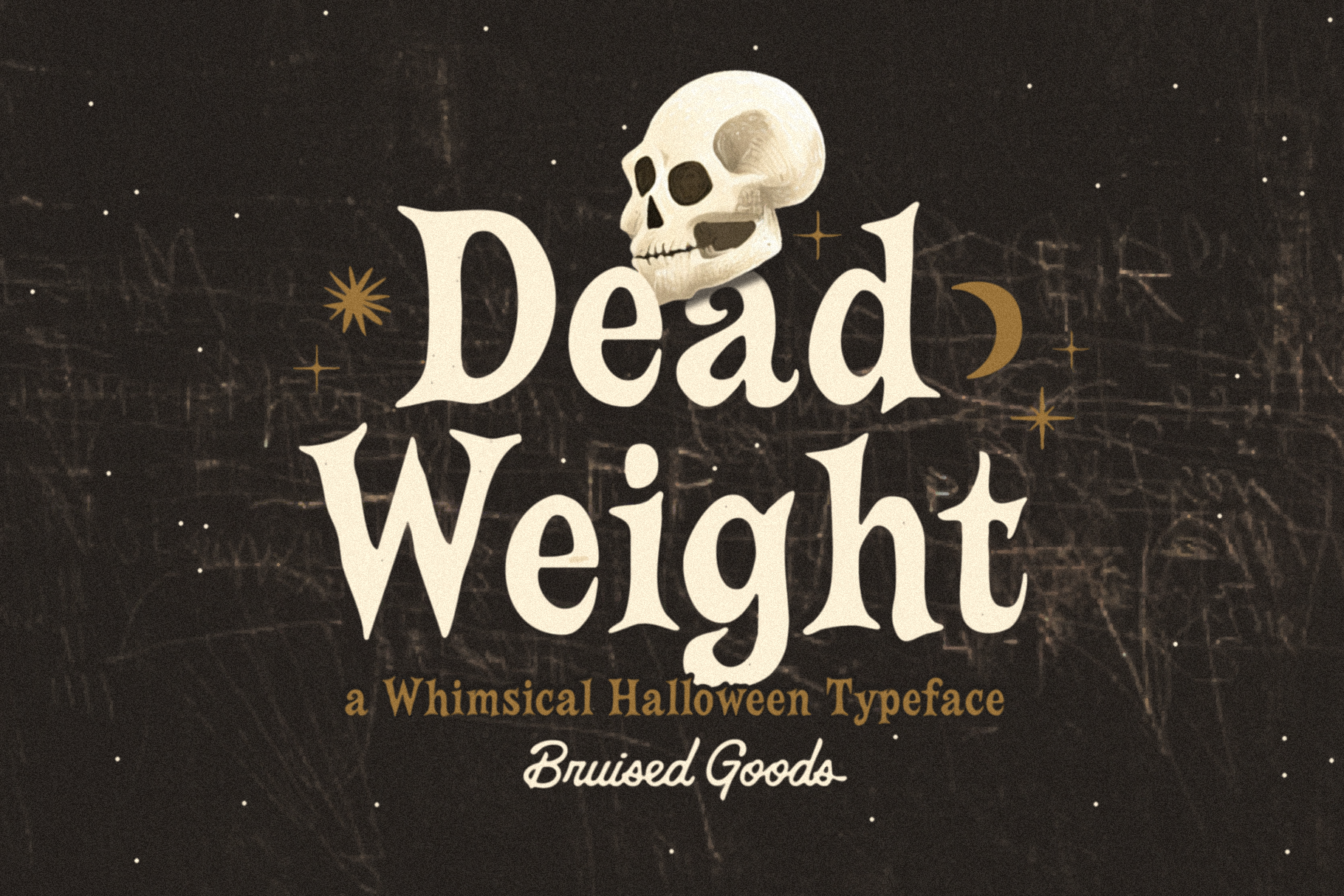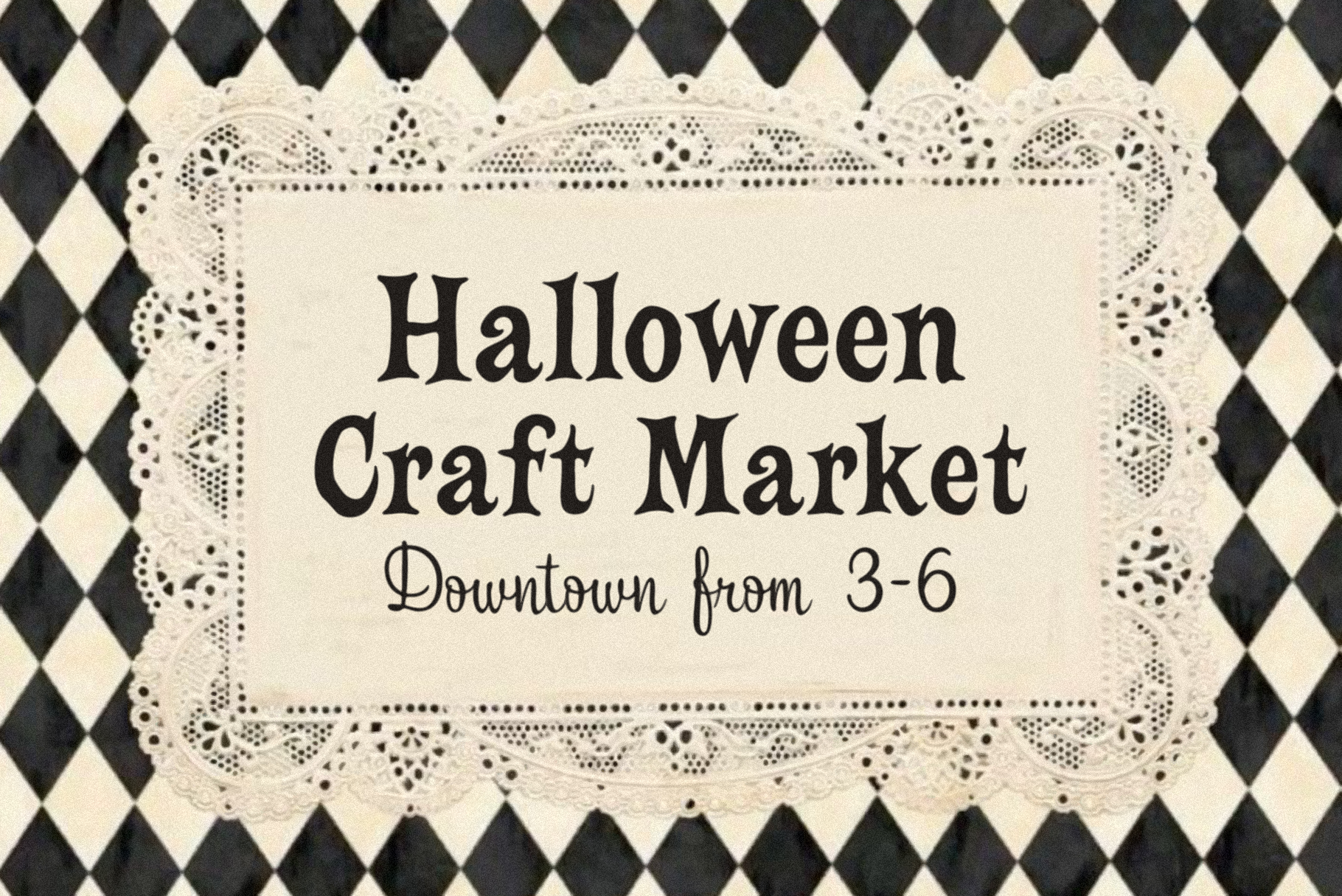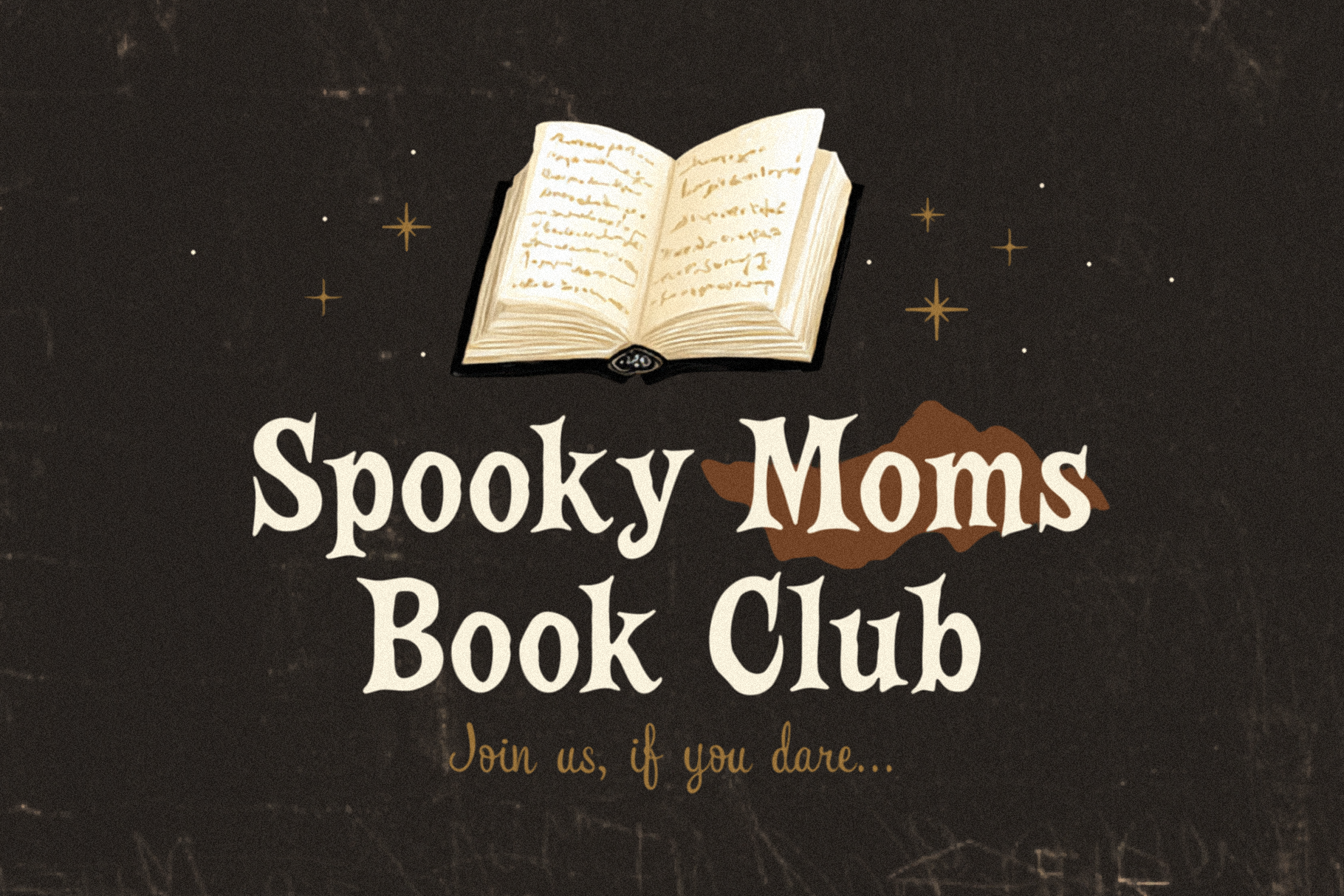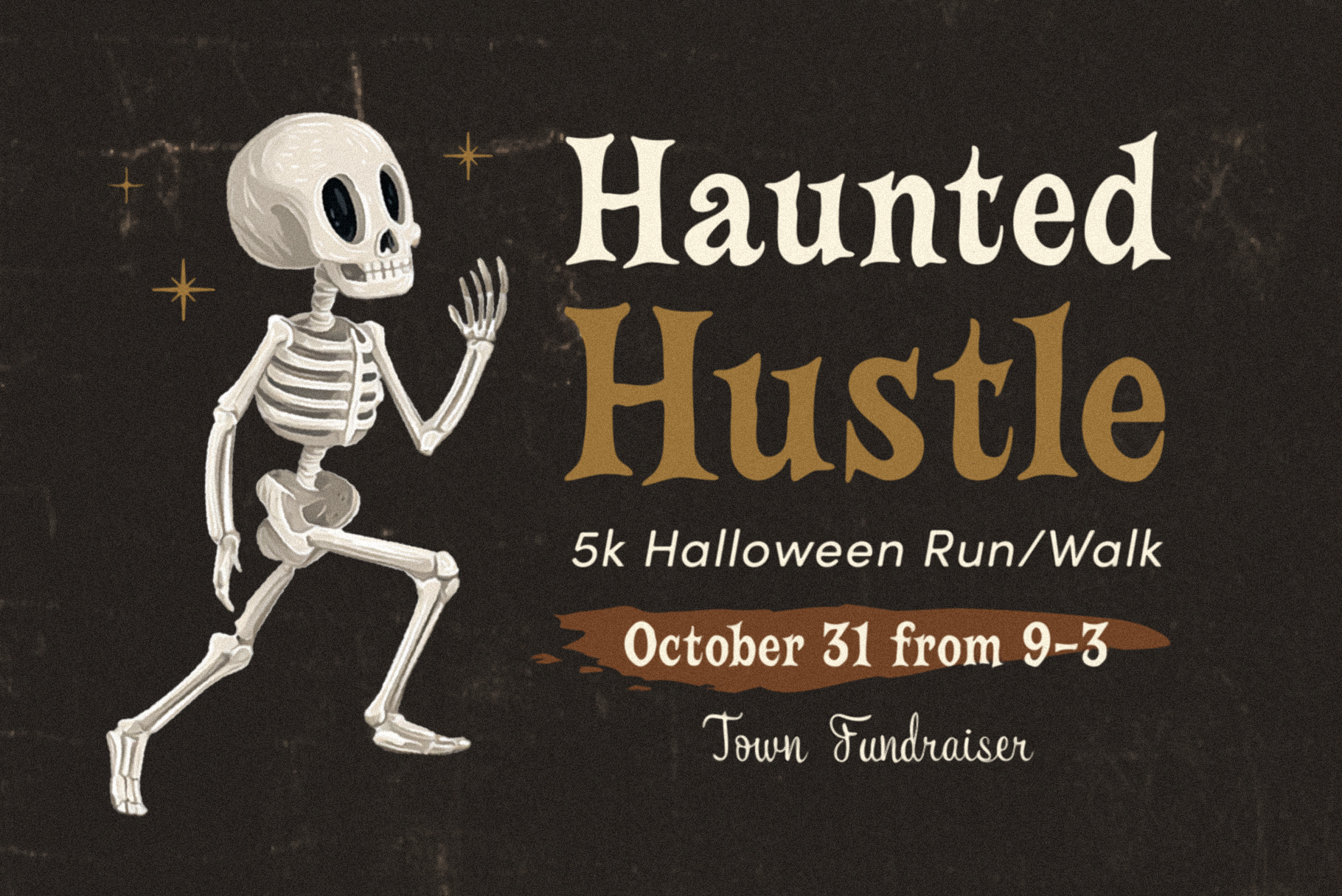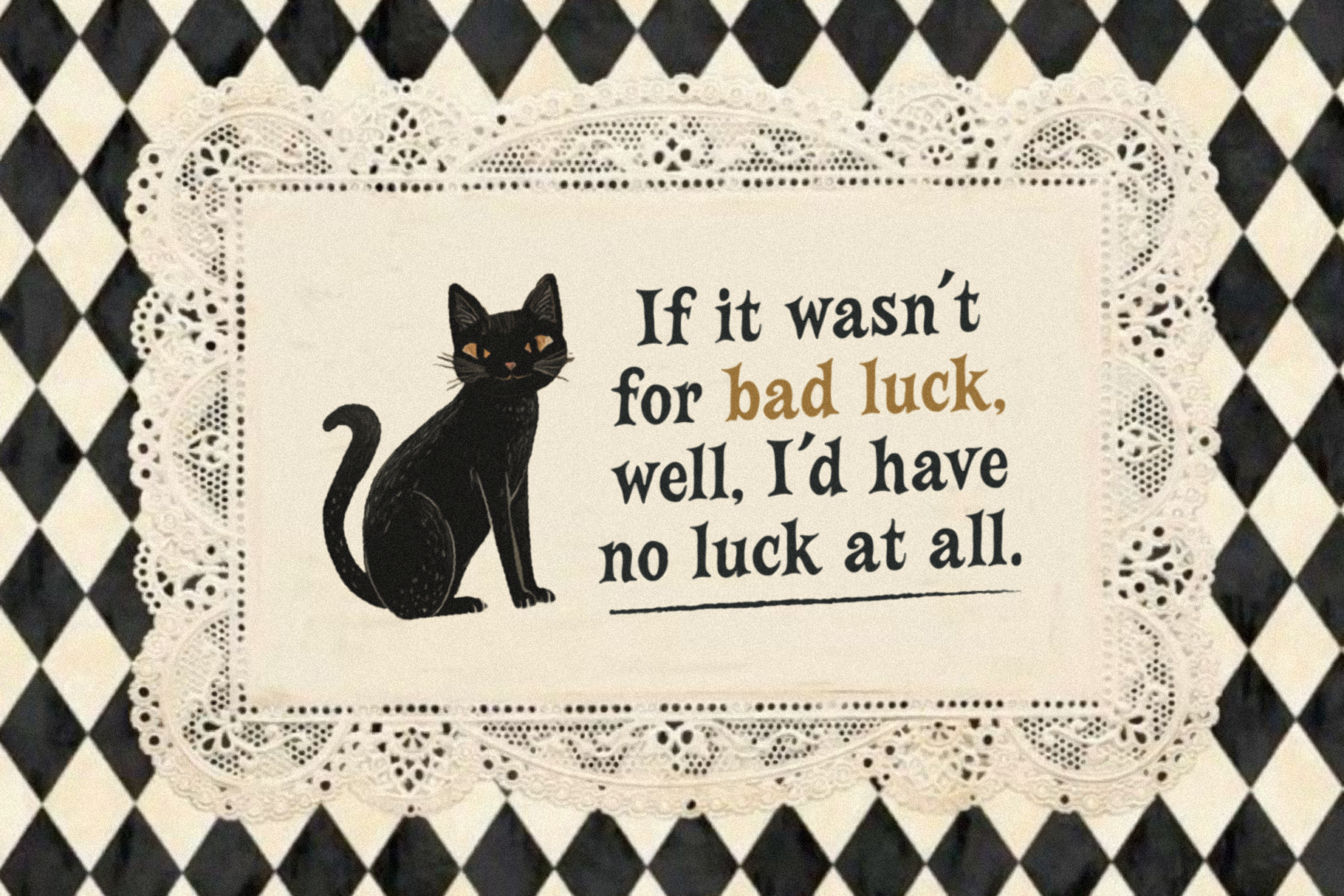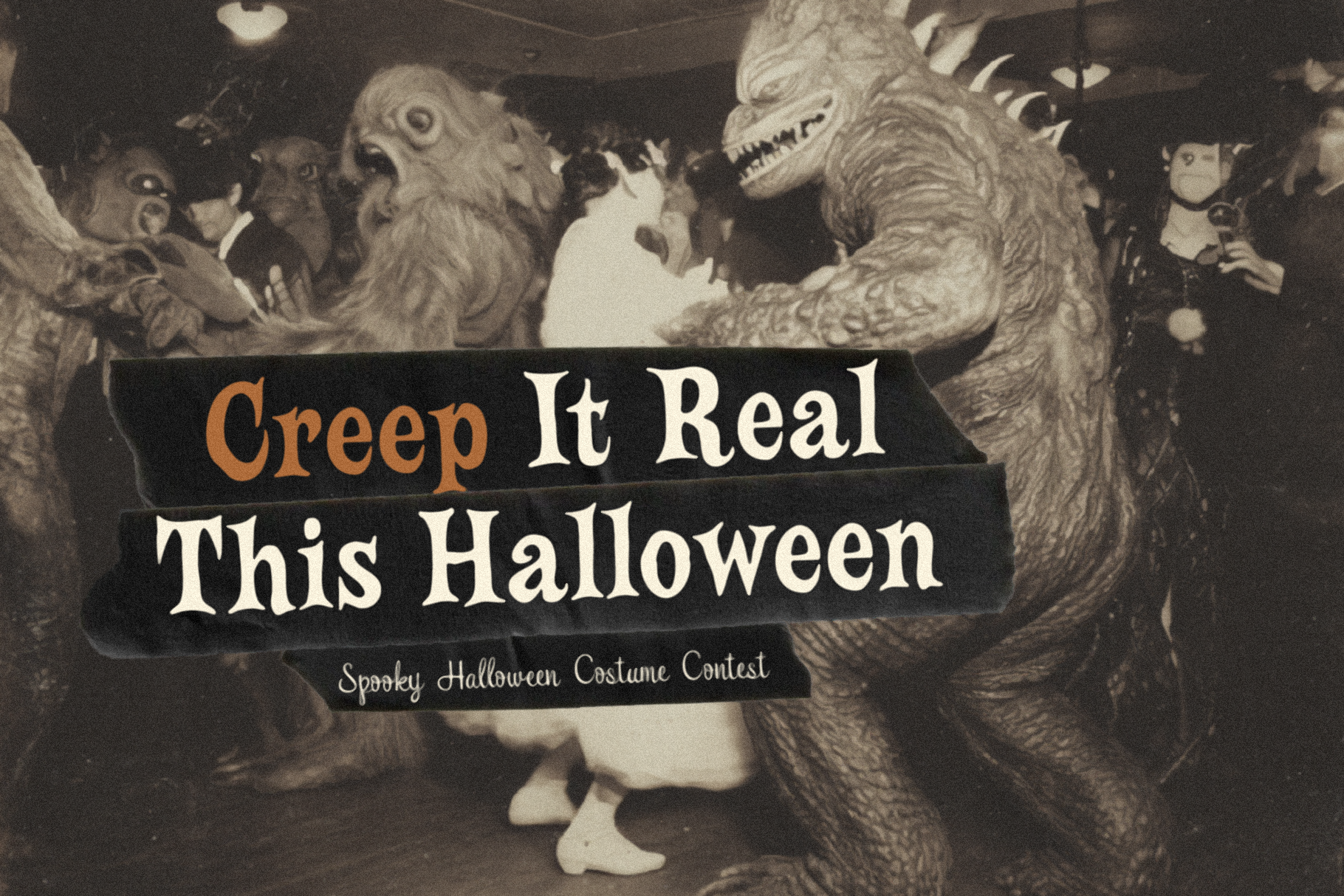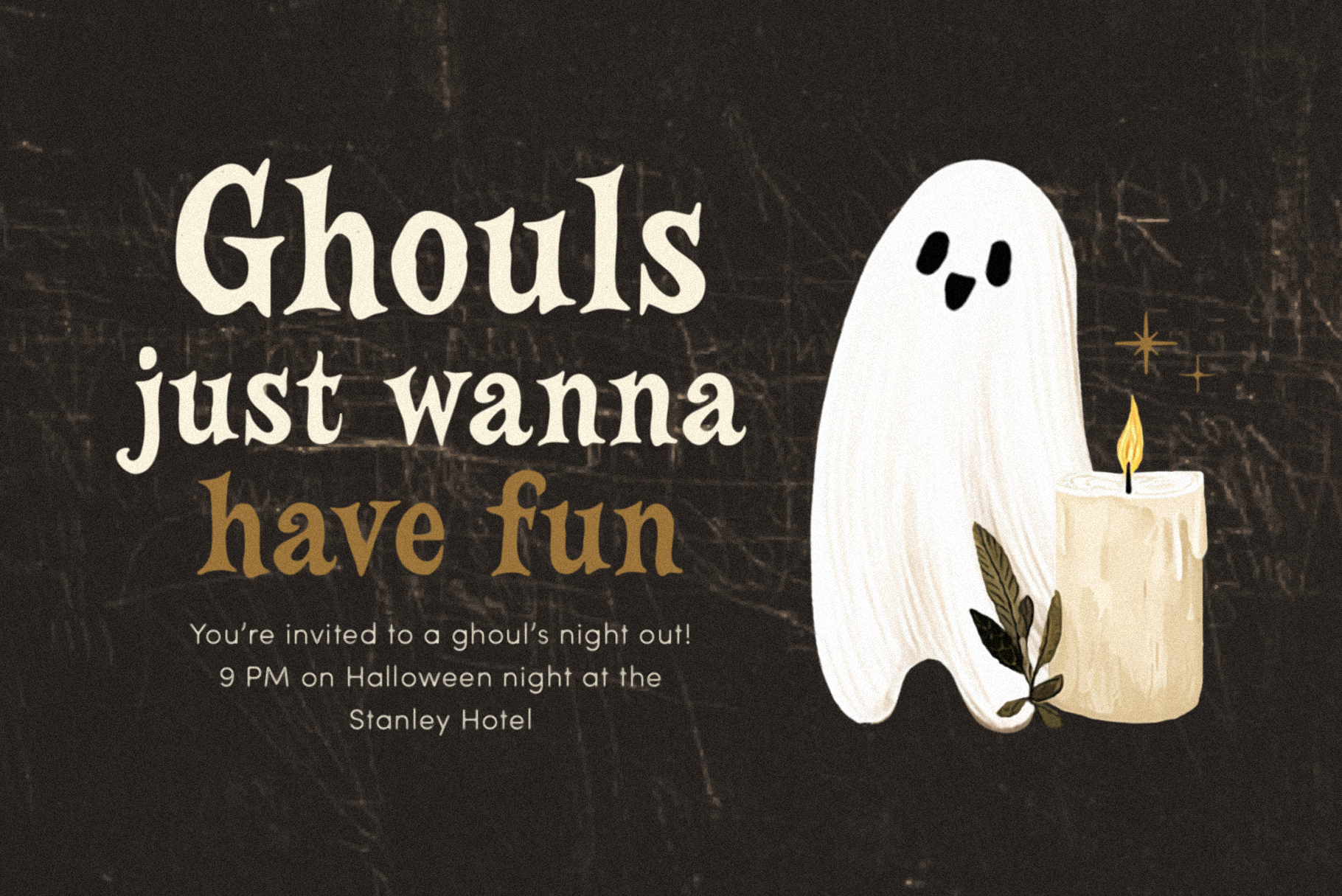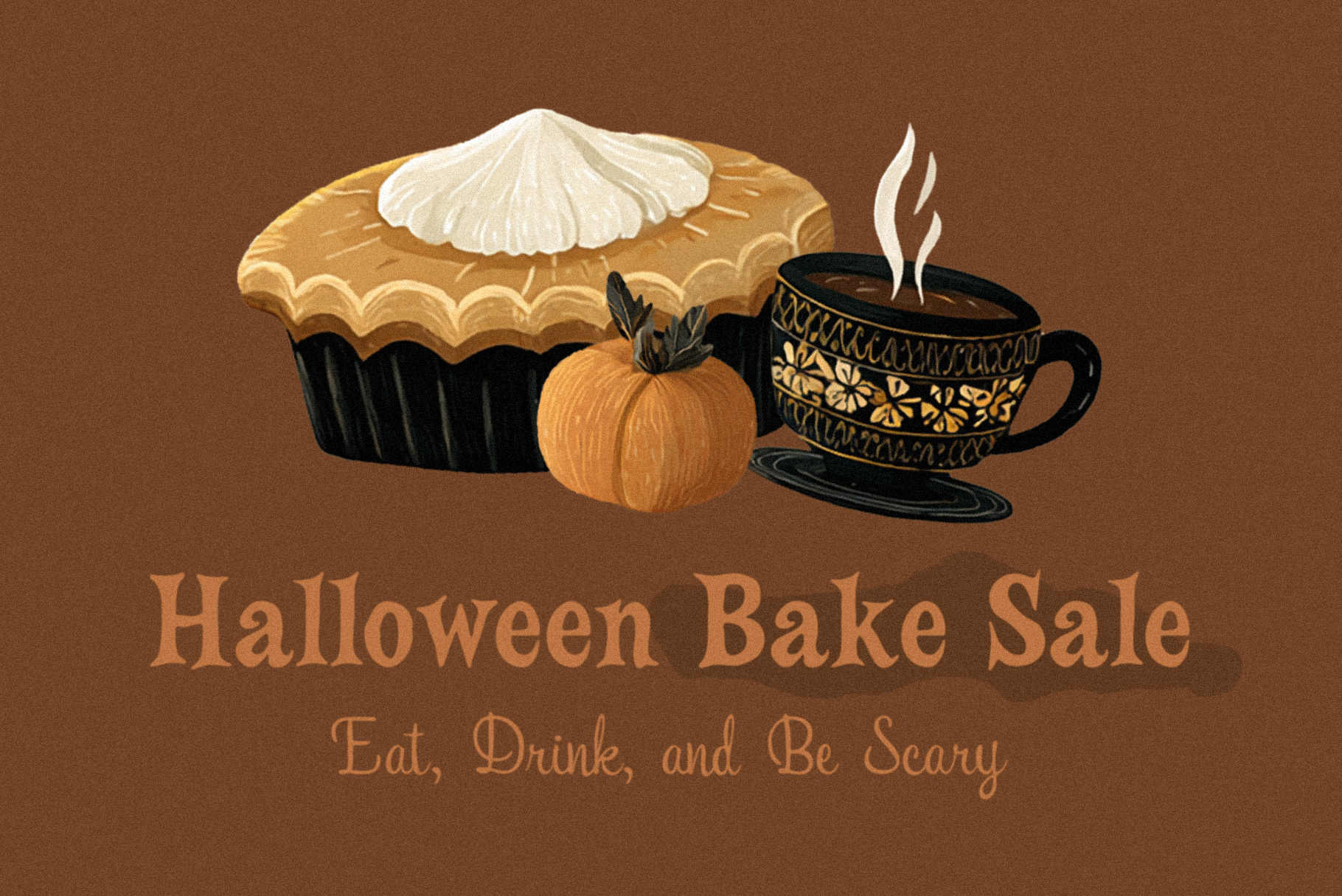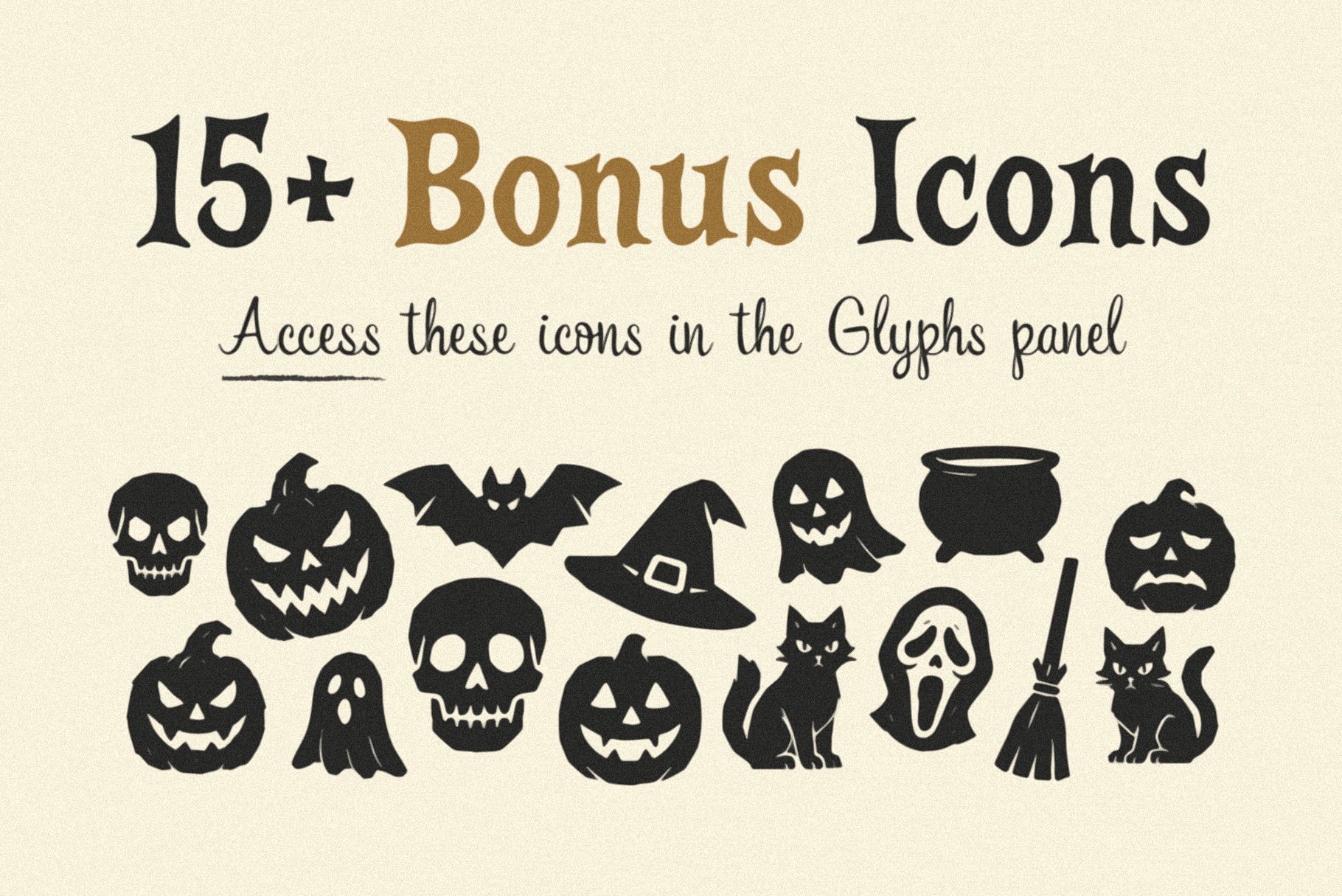
Deadweight + Jack's Lantern
DEADWEIGHT + JACK'S LANTERN (script) – A whimsical Halloween font collection by Bruised Goods.
380 Glyphs Total: Uppercase and Lowercase Characters, Numbers, Symbols, and Punctuation.